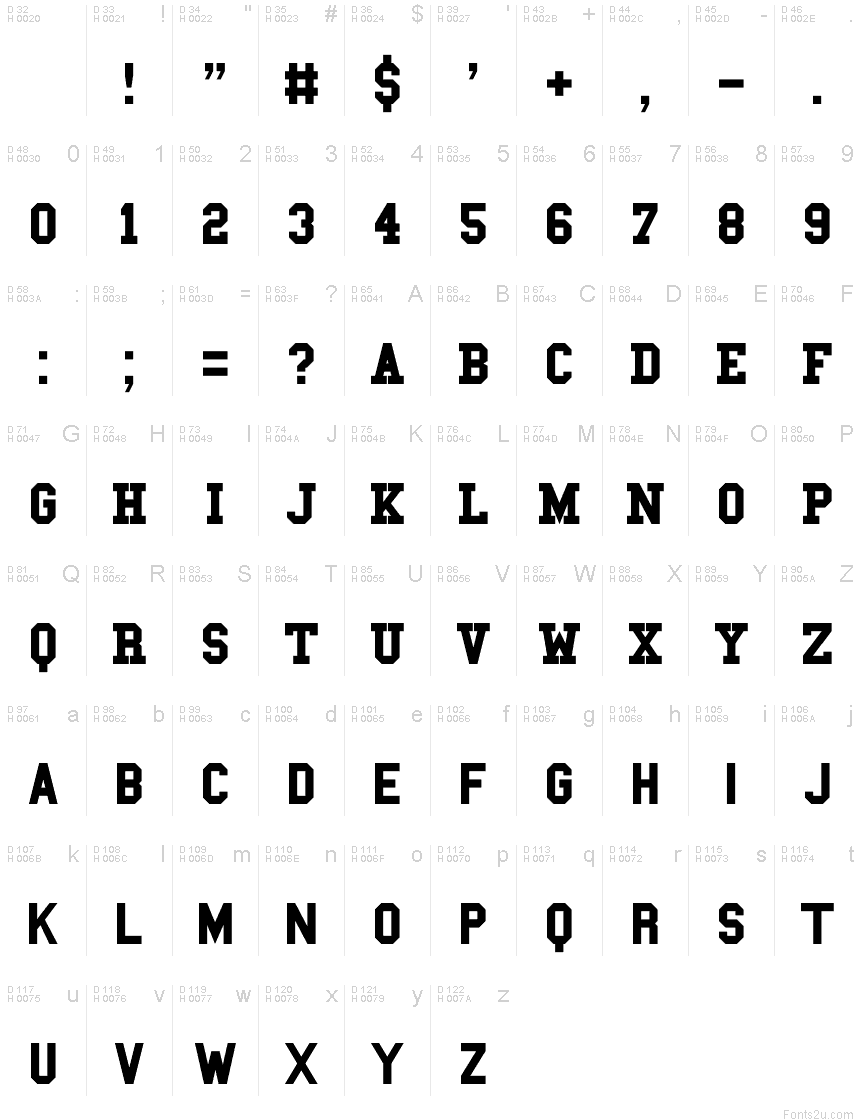
College Bold
College Bold font by Matthew Welch is a free varsity slab-serif from the College family, with tall squared forms and chunky corners that instantly bring gym floors, pennants, and campus signage to mind. The heavy shapes create a steady, hard-hitting rhythm, so short words feel confident and organized rather than crowded.
College Bold works especially well for team posters, school flyers, jersey graphics, yearbook covers, banner headlines, mascot branding, and retro sports merch. Pair this free font with a plain sans for supporting text, and keep it at a generous size so its crisp block silhouette can do the work.